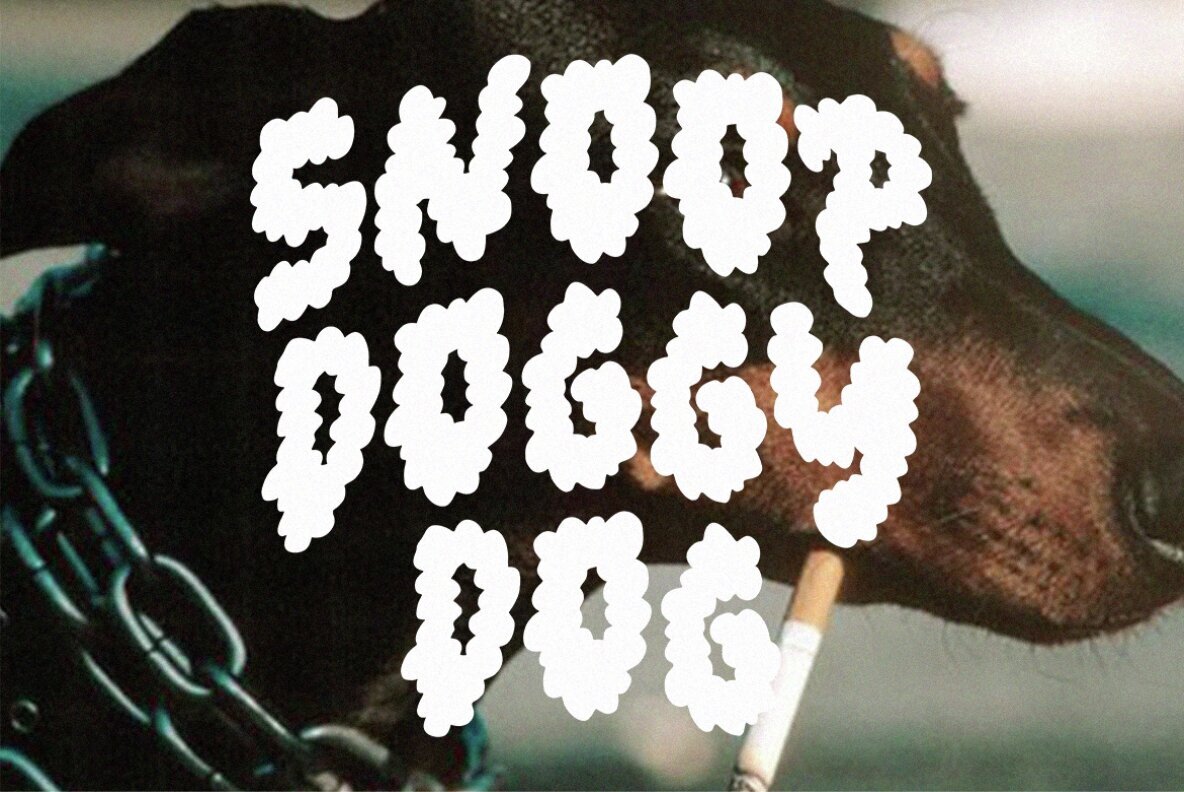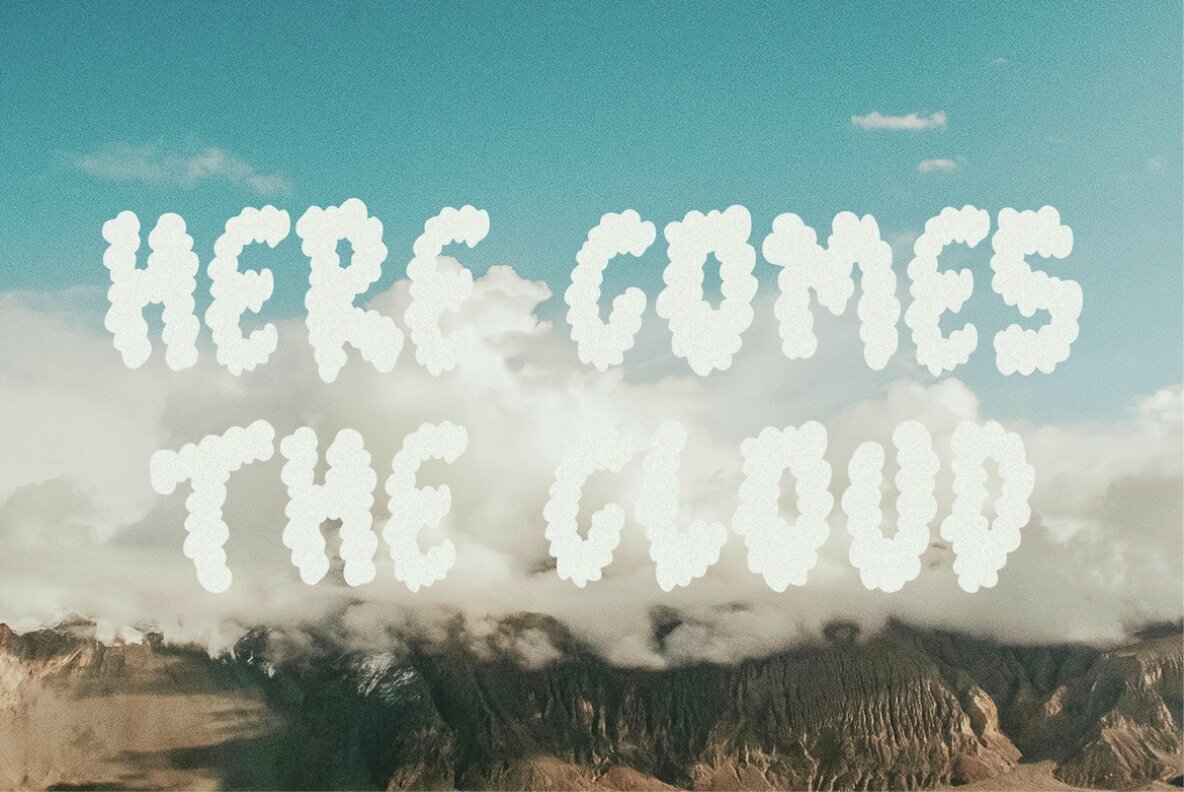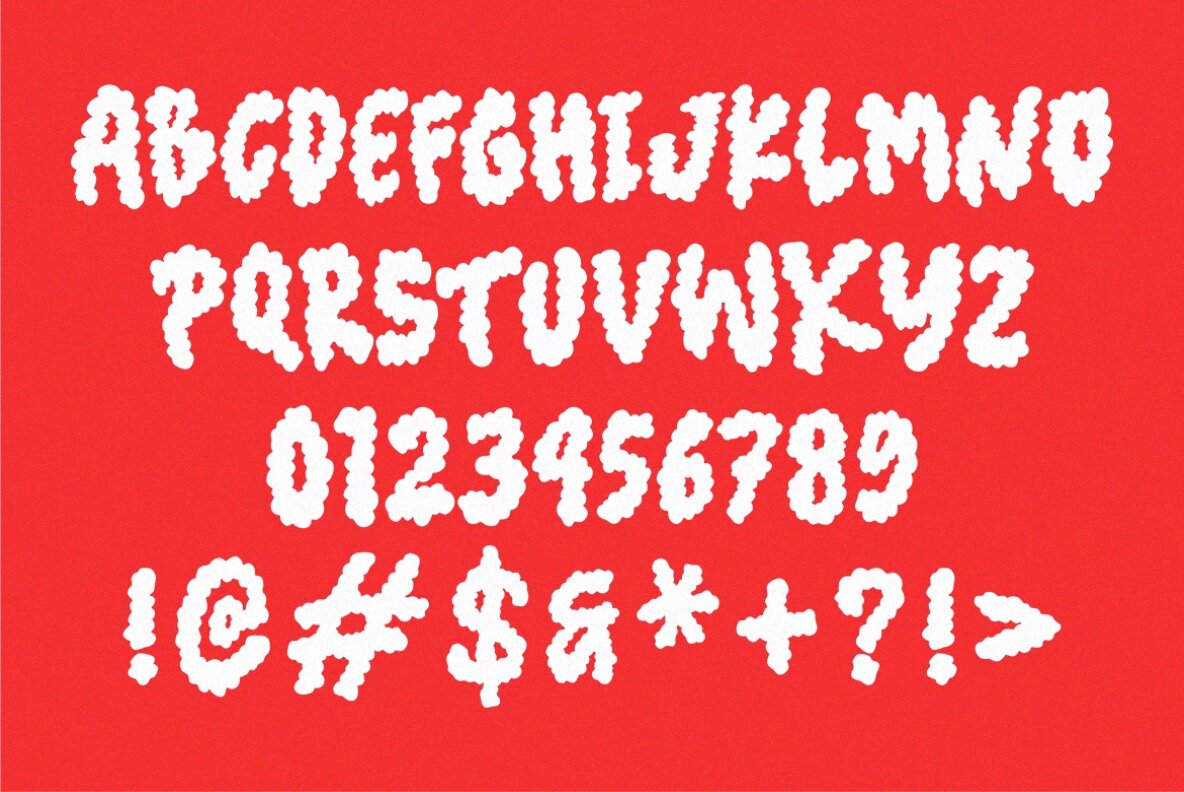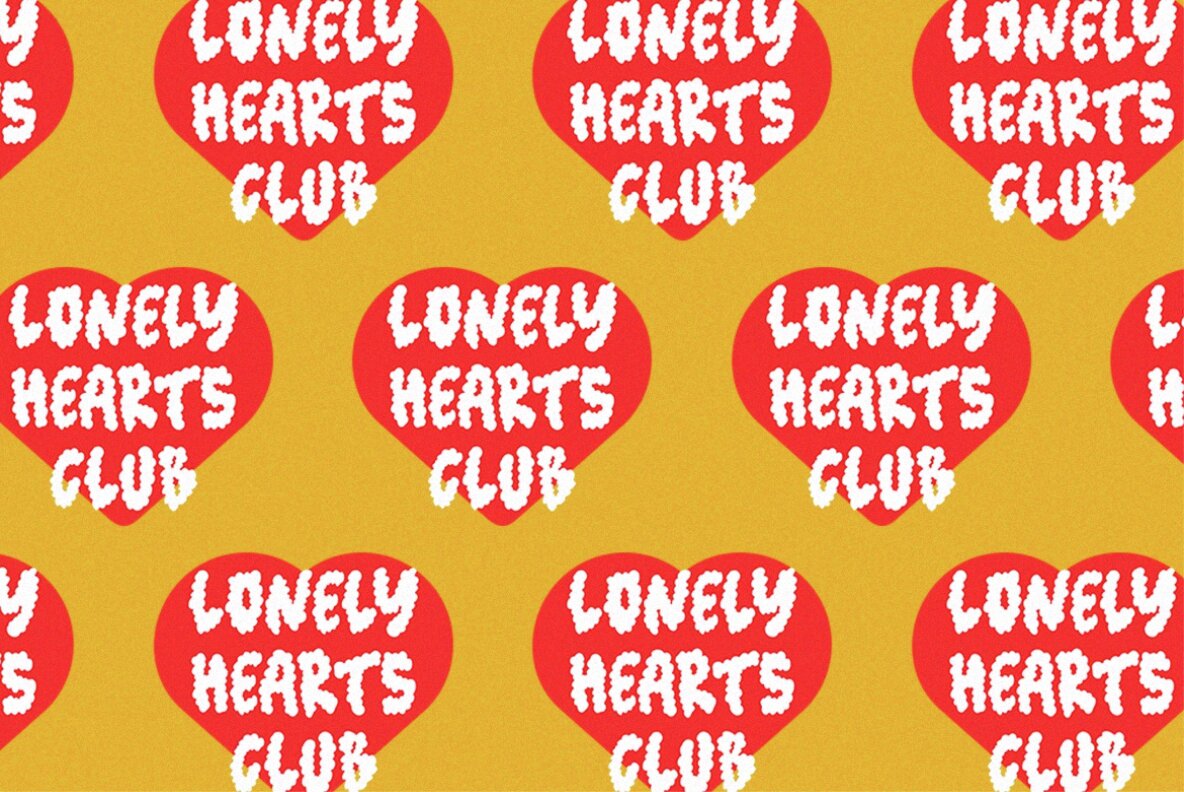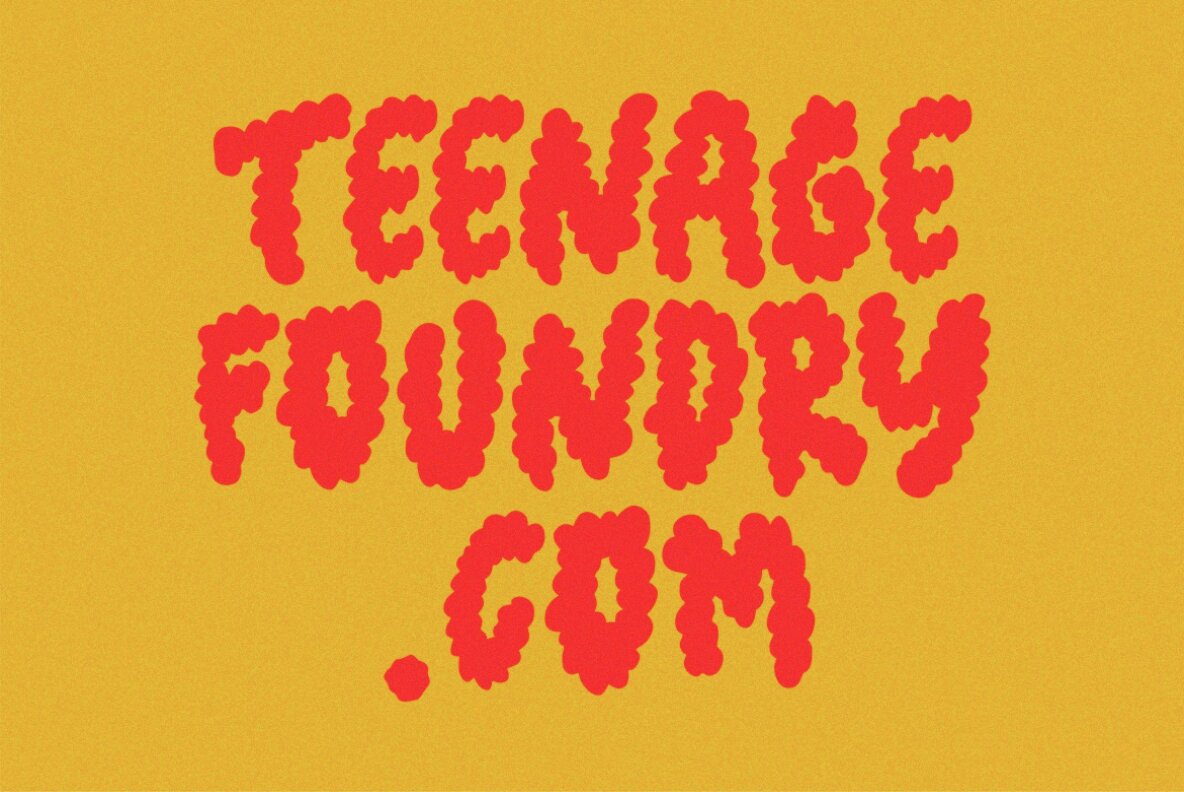
Teenage Kloudy Font
Teenage Kloudy Regular
Teenage Kloudy is a unique and whimsical display font that resembles fluffy clouds floating in the sky. The soft curves and puffy shapes of each letter give off a sense of lightness and serenity, making it perfect for designs targeting a teenage or youthful audience. Whether you're creating invitations, posters, or social media graphics, "Teenage Kloudy" will bring a sense of joy and wonder to your typography.